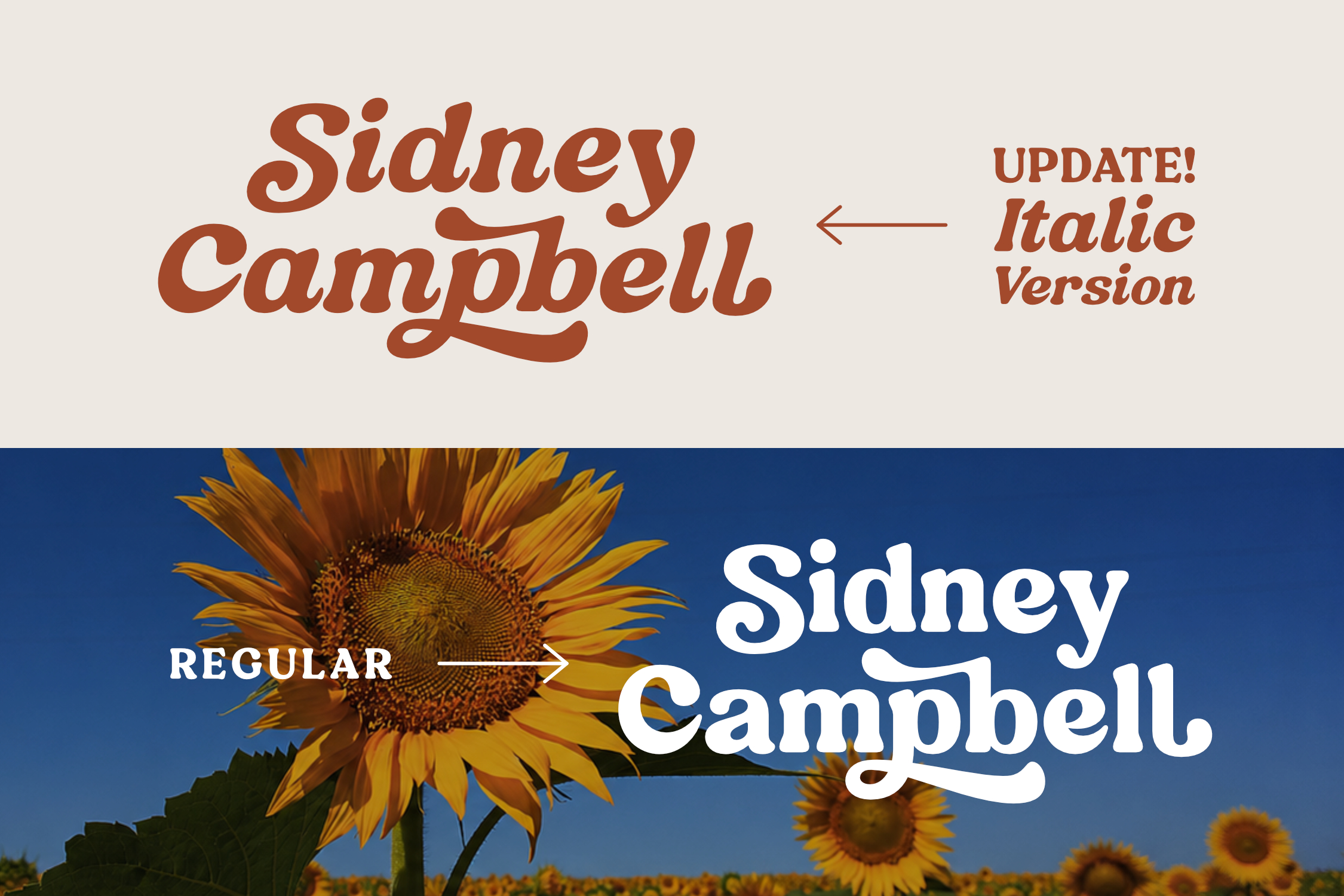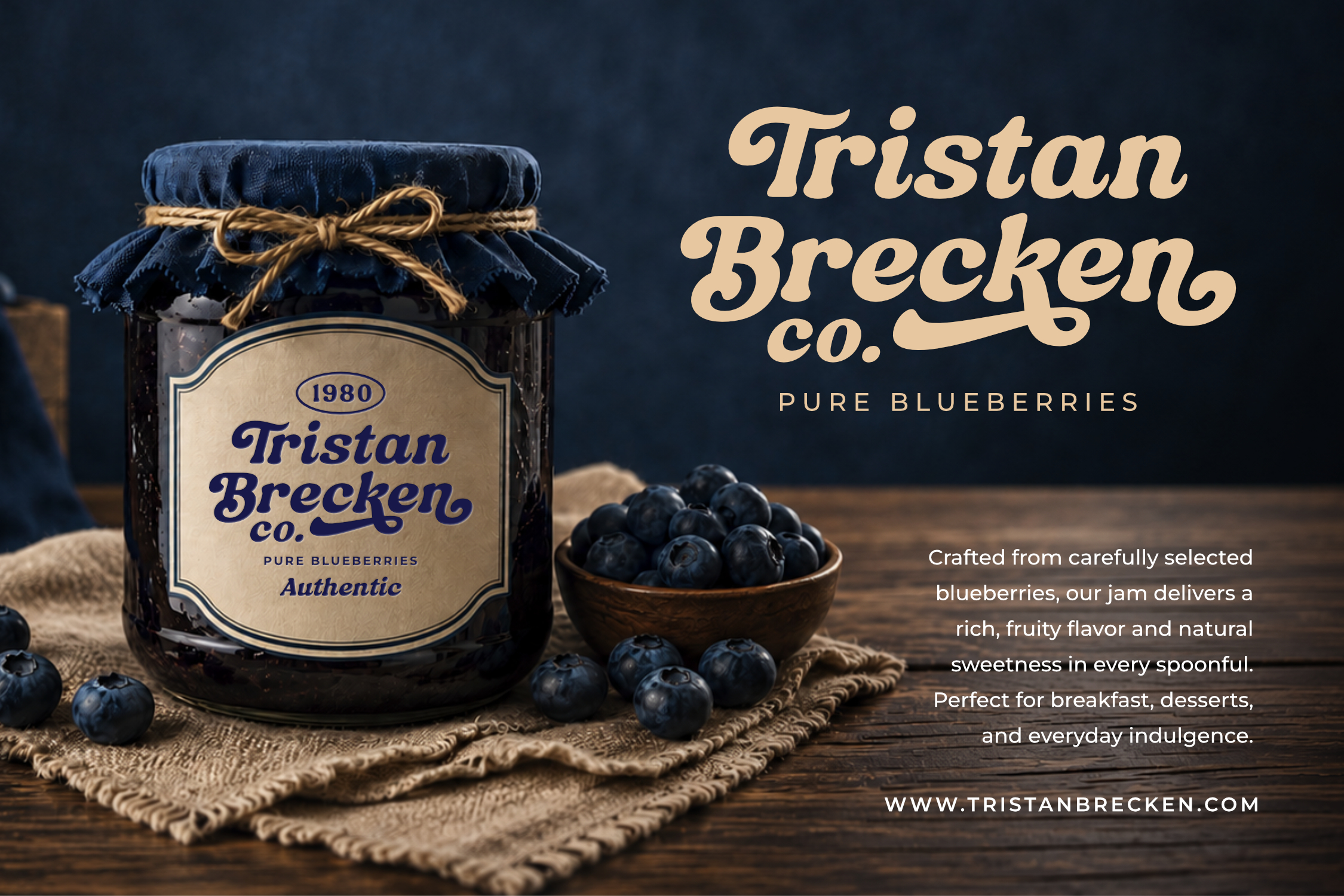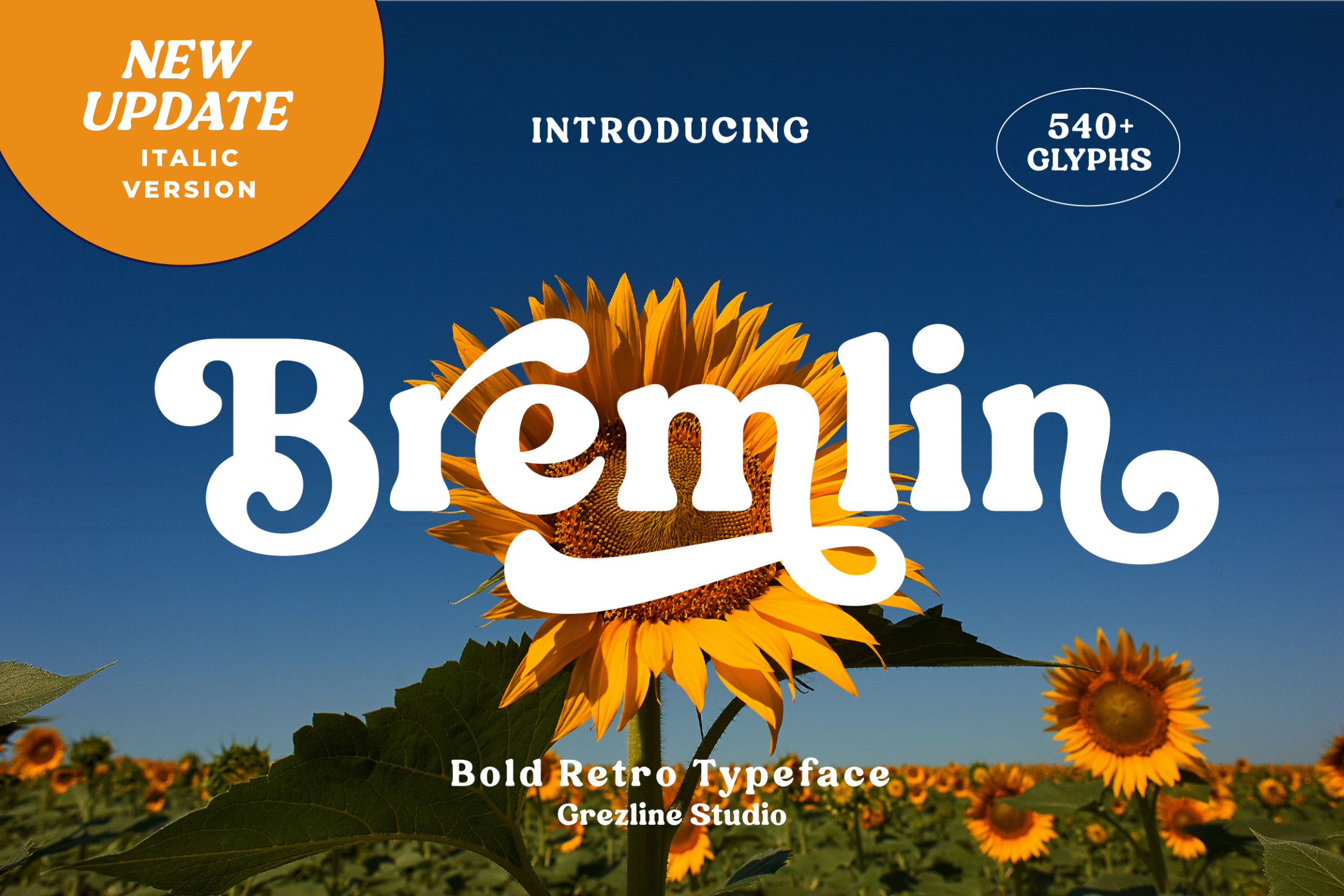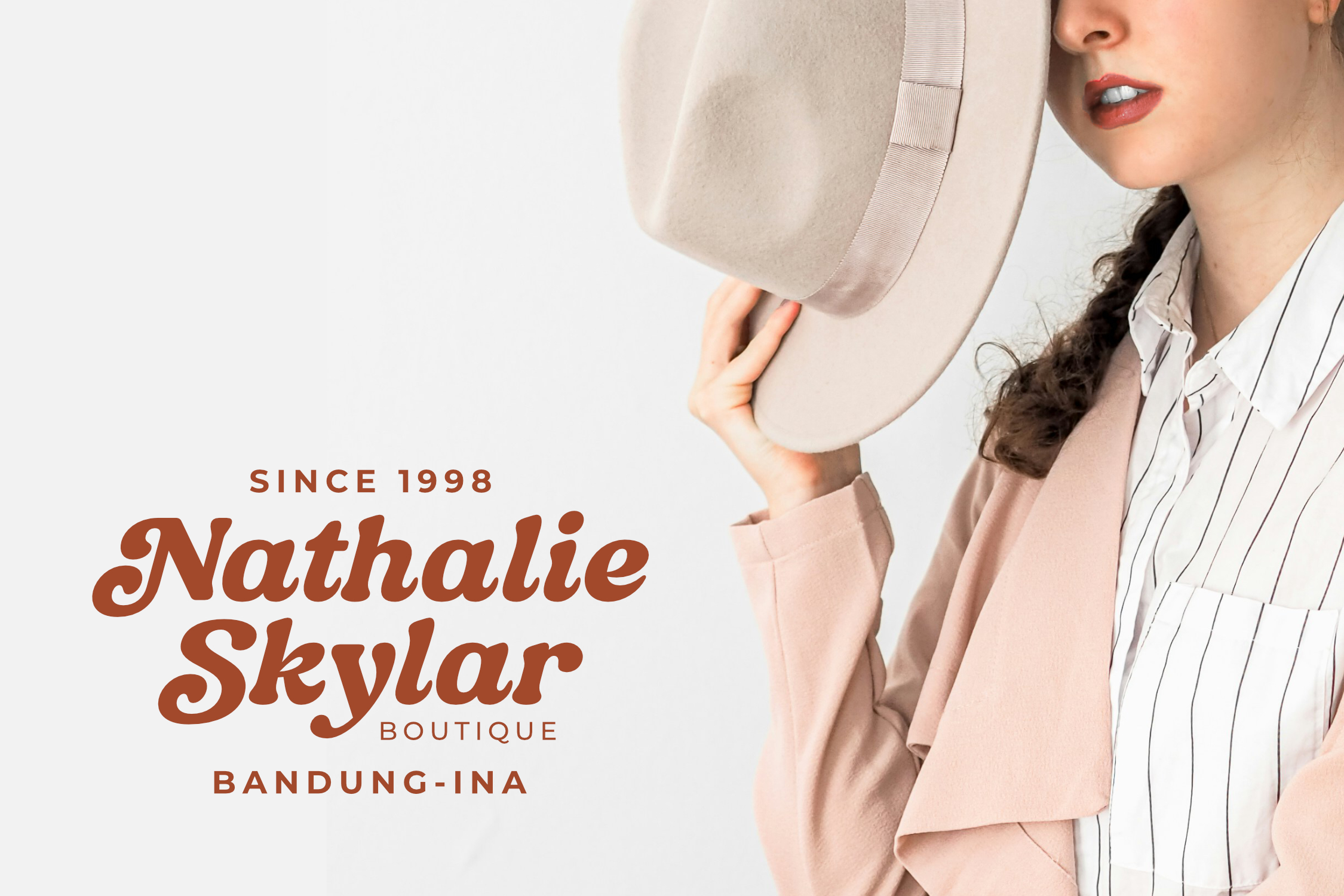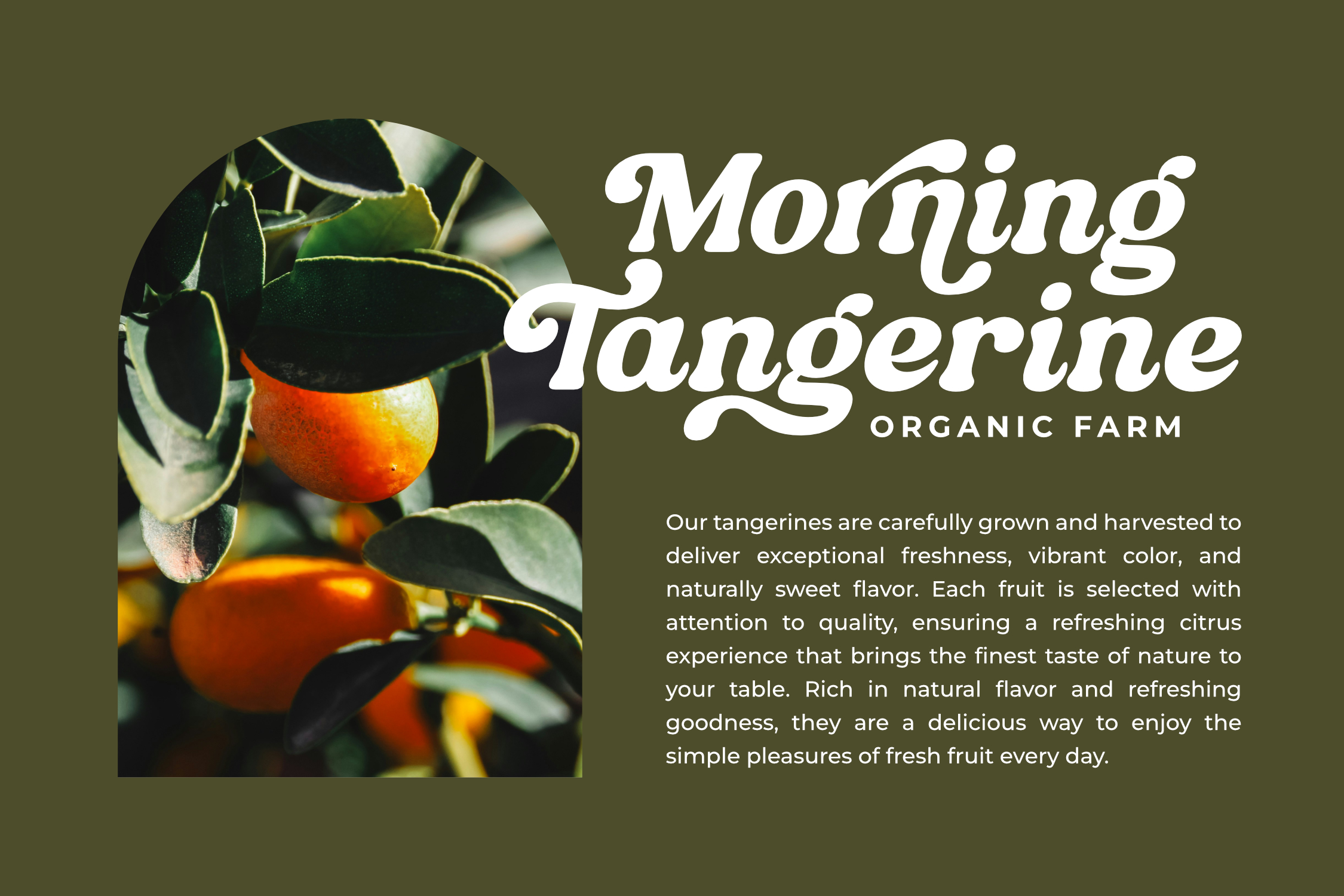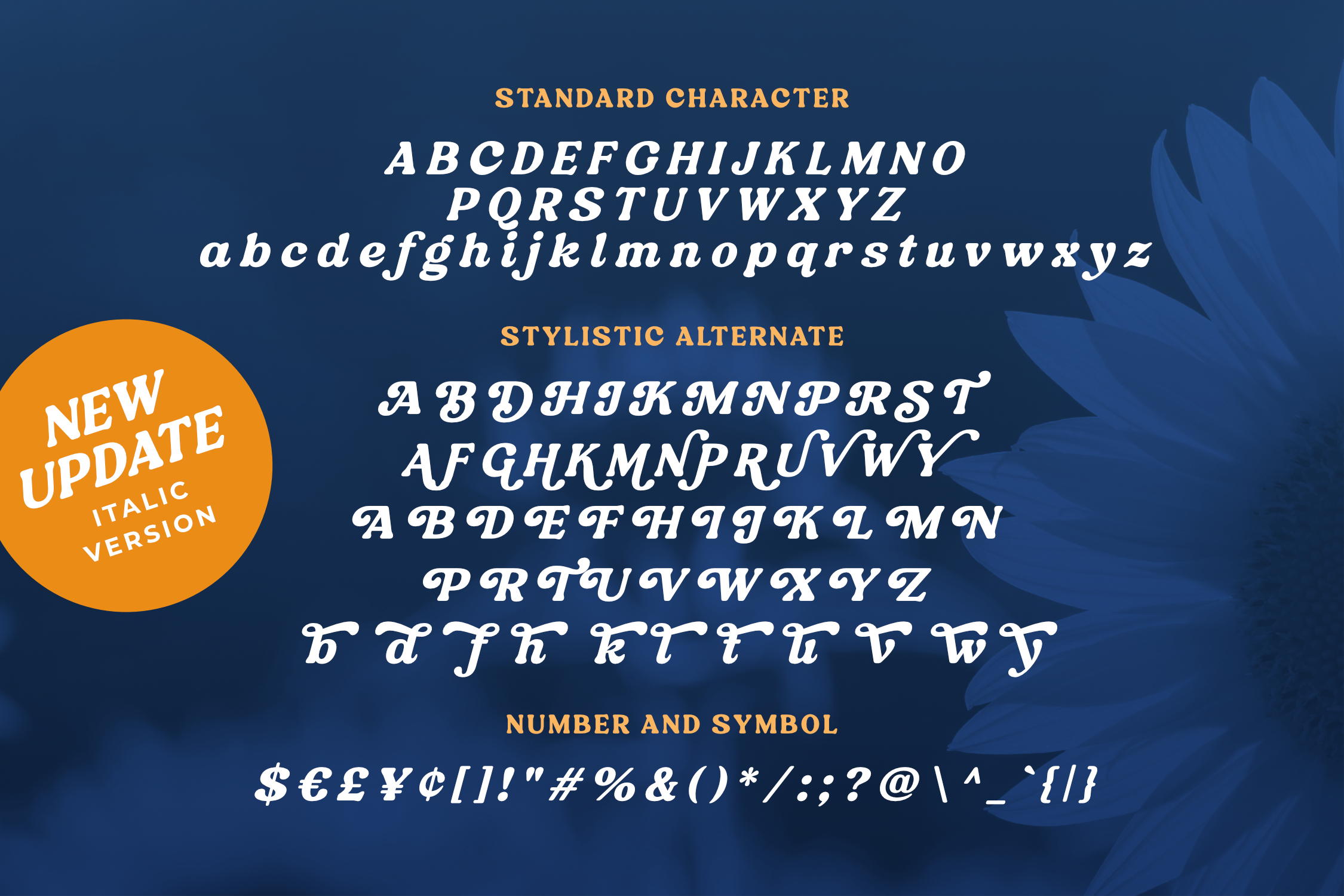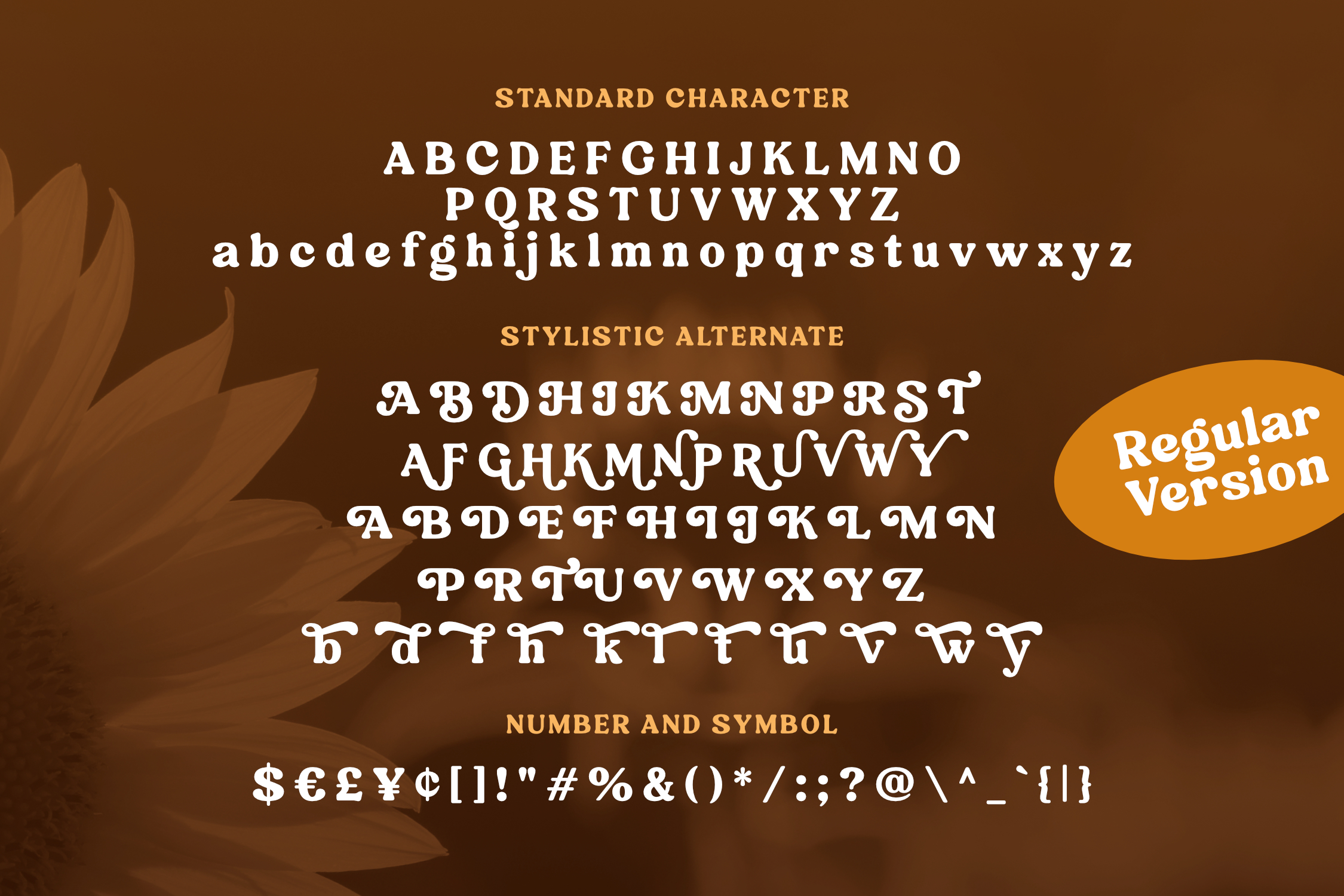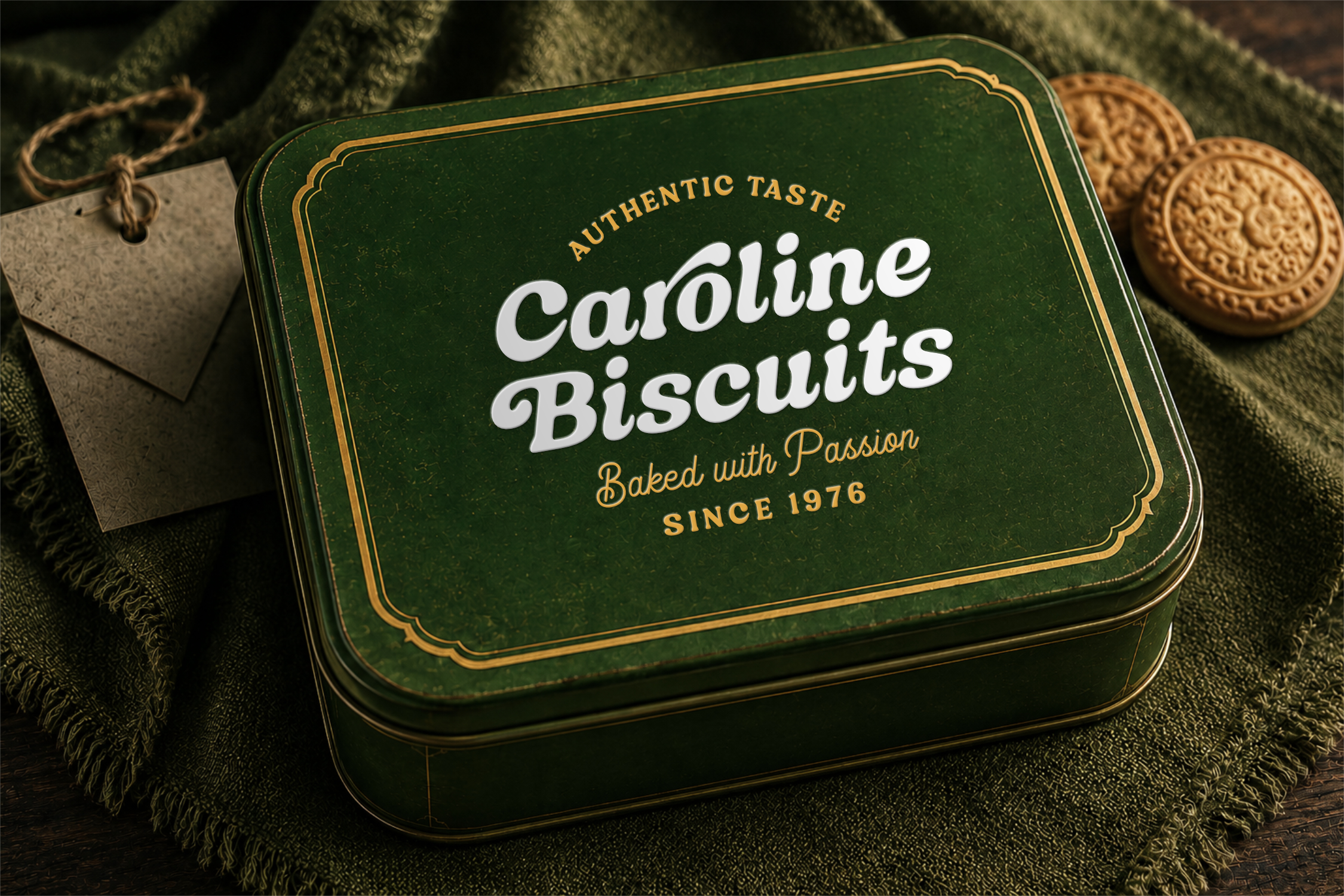
Bremlin
Bremlin Italic
Big news! Bremlin just got even better.
I’m excited to introduce the brand-new Italic Version of Bremlin, one of my best-selling retro typefaces. Designed to complement the original style, this new addition brings more flexibility, personality, and creative possibilities to your typography. Whether you’re working on branding, packaging, logos, posters, or social media content, Bremlin Italic helps you create more dynamic and expressive designs.
Now updated with an Italic Version and 540+ glyphs.
Bremlin is a bold retro font with a lot of alternate glyphs. This font is perfectly match for groovy retro and vintage design. Bremlin font is also usable in a wide range of works such as logos, covers, posters, quotes, product packaging, merchandise, social media and much more!
Feature :
• Alternates and Ligatures
• Multilingual Language